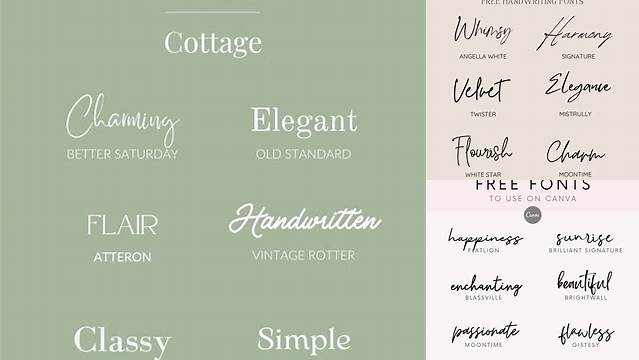
Charming Free Canva Fonts: Handwriting Styles
Hey guys! Looking to add a personal touch to your designs? You're in the right spot! Let's dive into the world of free Canva fonts that look like handwriting. Nothing beats the charm of a handwritten note, and with these fonts, you can bring that authentic feel to your digital projects without spending a dime. Whether it's for invitations, social media graphics, or branding materials, these fonts will make your work stand out.
Why Use Handwriting Fonts?
Before we jump into the specifics, let's talk about why handwriting fonts are so awesome. They bring a sense of warmth and personality to your designs that you just can't get with standard fonts. Think about it: a handwritten font feels more personal and inviting, which can make your audience feel more connected to your message. Plus, they're super versatile and can be used in a variety of projects.
1. Best Free Canva Handwriting Fonts for Invitations
When you're crafting invitations, you want something that feels special and unique. The best free Canva handwriting fonts can really set the tone for your event. Imagine sending out wedding invitations with a font that looks like it was lovingly handwritten by you – it adds a touch of elegance and intimacy that's hard to replicate. For birthday parties, a playful handwriting font can create a fun and festive vibe that gets everyone excited to celebrate.
So, which fonts should you be reaching for? Think about fonts with loops and flourishes, something that mimics the natural flow of cursive writing. These fonts make your invitations feel more personal, as though you took the time to carefully address each one by hand. And hey, in a world of digital communication, that extra touch can make all the difference!
2. Top Free Script Fonts on Canva for Branding
Your brand is your identity, and your font plays a huge role in communicating that identity to the world. Top free script fonts on Canva can help you create a brand that feels authentic and approachable. A well-chosen script font can convey elegance, creativity, or even a sense of fun, depending on your brand's personality. For example, if you're running a boutique, a delicate script font can evoke a sense of luxury and exclusivity. On the other hand, if you're branding a children's clothing line, a playful, whimsical script font can make your brand feel more friendly and inviting.
When selecting script fonts for branding, consider legibility and readability. While a fancy, intricate font might look stunning, it won't do you any good if people can't easily read your brand name or tagline. Opt for fonts that strike a balance between style and clarity, ensuring that your brand message is both beautiful and accessible.
3. Popular Handwritten-Style Fonts for Social Media
Social media is all about capturing attention, and popular handwritten-style fonts can help you do just that. These fonts stand out in a sea of standard, corporate-looking text, making your posts more engaging and shareable. Think about it: when you're scrolling through your feed, what catches your eye? Something that looks different and unique, right? Handwritten fonts offer that visual appeal, drawing people in and making them want to learn more.
For social media, consider using fonts that are bold and easy to read, even on small screens. A slightly thicker handwritten font can make your text pop, ensuring that your message is clear and impactful. And don't be afraid to experiment with different fonts for different types of content. A playful font might be perfect for a fun announcement, while a more elegant font could be ideal for sharing inspirational quotes.
4. Free Canva Cursive Fonts for a Personal Touch
If you're aiming for a truly personal touch, free Canva cursive fonts are the way to go. Cursive fonts mimic the flowing, connected strokes of handwriting, giving your designs a sense of authenticity and warmth. They're perfect for projects where you want to create a feeling of intimacy and connection, such as thank-you notes, personalized gifts, or heartfelt messages.
When using cursive fonts, be mindful of readability. Some cursive fonts can be quite intricate, which can make them difficult to read if they're too small or used in large blocks of text. Choose cursive fonts that are clear and legible, and use them sparingly to highlight key words or phrases. A little bit of cursive can go a long way in adding a personal touch to your designs.
5. Unique Canva Fonts That Resemble Real Handwriting
Want something that truly looks like it came straight from a pen? Unique Canva fonts that resemble real handwriting are what you need. These fonts capture the subtle imperfections and variations that make handwriting so distinctive. They're perfect for projects where you want to create a sense of authenticity and originality, such as blog headers, journal entries, or scrapbook layouts.
Look for fonts that have a natural, uneven flow, with slight variations in thickness and spacing. These fonts mimic the way that a real person's handwriting would look, making your designs feel more genuine and relatable. And don't be afraid to mix and match different handwriting fonts to create a truly unique look!
6. How to Find Free Handwriting Fonts on Canva
Finding the perfect free handwriting fonts on Canva is easier than you think. Simply open Canva and start a new design. Then, click on the text tool and browse through the font options. Use the search bar to type in keywords like "handwriting," "script," or "cursive" to narrow down your options. Canva has a wide selection of free fonts, so you're sure to find something that you love.
Another great way to discover new fonts is to explore Canva's font pairings. These pairings are curated combinations of fonts that work well together, taking the guesswork out of font selection. You can also check out Canva's design templates, which often feature beautiful handwriting fonts that you can use as inspiration.
7. Combining Handwriting Fonts with Other Font Styles
To create visually appealing designs, try combining handwriting fonts with other font styles. For example, you could pair a script font with a clean sans-serif font to create a contrast between elegance and simplicity. This technique can add depth and interest to your designs, making them more engaging and professional-looking.
When combining fonts, pay attention to hierarchy and legibility. Use the handwriting font for headings or key phrases, and use a simpler font for body text. This will help to guide the reader's eye and ensure that your message is clear and easy to understand. And don't be afraid to experiment with different font combinations until you find something that feels just right!
8. Best Practices for Using Handwriting Fonts in Design
Using handwriting fonts effectively requires a bit of finesse. Follow these best practices to ensure that your designs look polished and professional: Prioritize legibility, especially in body text. Choose fonts that are easy to read and avoid overly ornate or intricate designs. Use handwriting fonts sparingly, as too much can be overwhelming. Combine with clean, simple fonts for contrast.
Adjust spacing and size for readability. Ensure proper kerning and leading. Test your design on different devices to ensure fonts render correctly. Consider your audience and the message you want to convey. Choose fonts that align with your brand's personality and the tone of your project. By following these guidelines, you can harness the power of handwriting fonts to create designs that are both beautiful and effective.
9. The Psychology Behind Handwriting Fonts
There's a reason why handwriting fonts resonate with people on a deeper level. They evoke feelings of nostalgia, warmth, and authenticity. Think about the last time you received a handwritten letter or card. It probably made you feel special and appreciated, right? That's because handwriting carries a personal touch that digital fonts simply can't replicate.
In marketing, using handwriting fonts can help to build trust and create a more human connection with your audience. They can make your brand feel more approachable and relatable, which can lead to increased engagement and customer loyalty. So, if you're looking to add a personal touch to your marketing materials, consider incorporating handwriting fonts into your design strategy.
10. Pairing Free Canva Handwriting Fonts with Images
The right images can amplify the effect of your handwriting fonts. Consider the mood you're trying to create. For example, a rustic script font paired with a vintage photo can evoke a sense of nostalgia, while a playful handwriting font combined with colorful illustrations can create a fun and whimsical vibe. Choose images that complement the style of your font and enhance the overall message of your design. Experiment with different combinations to find what works best for your project. Use high-quality images to maintain a professional look.
11. Free Canva Calligraphy Fonts for Elegant Designs
For a touch of sophistication, explore free Canva calligraphy fonts. These fonts mimic the elegant strokes of traditional calligraphy, adding a sense of refinement and grace to your designs. They're perfect for wedding invitations, thank-you notes, or any project where you want to convey a sense of luxury and artistry.
When using calligraphy fonts, be mindful of legibility. Choose fonts that are easy to read and avoid using them in large blocks of text. Use them sparingly to highlight key words or phrases, and pair them with simpler fonts for contrast. With the right touch, calligraphy fonts can elevate your designs and create a lasting impression.
12. Using Free Handwriting Fonts for Logos
A handwriting font can give your logo a personal and memorable touch. It can make your brand feel more approachable and authentic. However, choose a font that is legible and scalable. Ensure it looks good in both large and small sizes. Consider your brand's personality. Is it playful and whimsical, or sophisticated and elegant? Choose a font that reflects your brand's identity.
Test your logo on different backgrounds and in different colors to ensure it remains legible. Get feedback from others to see how they perceive your logo. By following these tips, you can create a logo that stands out and represents your brand effectively. Remember, a well-designed logo is a valuable asset that can help you attract and retain customers.
13. The Importance of Legibility in Handwriting Fonts
While handwriting fonts add a unique touch, legibility is key. Prioritize fonts that are easy to read at a glance. Avoid overly decorative or complex fonts that can strain the eye. Test your design on different devices and screen sizes. Ensure the font remains clear and readable even on small screens. Consider your audience. Choose fonts that are appropriate for their age and reading ability.
Use adequate spacing between letters and lines to improve readability. Avoid using handwriting fonts for large blocks of text. Instead, use them for headings or short phrases. By prioritizing legibility, you can ensure that your message is effectively communicated and that your designs are accessible to all.
14. Free Canva Fonts That Mimic Signature Styles
Want to add a personal signature to your designs? Look for free Canva fonts that mimic signature styles. These fonts can make your work feel more authentic and unique. They're perfect for watermarks, branding materials, or adding a personal touch to your projects.
When choosing a signature font, consider your personal style. Do you prefer a bold and confident signature, or something more delicate and refined? Select a font that reflects your personality and brand. Use it sparingly to highlight your name or initials, and pair it with simpler fonts for contrast. With the right signature font, you can make your designs feel truly your own.
15. Adding Swashes and Flourishes to Free Handwriting Fonts
To enhance the elegance of your handwriting fonts, consider adding swashes and flourishes. These decorative elements can add a touch of sophistication and artistry to your designs. Look for fonts that include built-in swashes and flourishes, or add them manually using graphic design software.
Use swashes and flourishes sparingly, as too much can be overwhelming. Focus on adding them to key letters or at the beginning and end of words. Consider the overall style of your design. Choose swashes and flourishes that complement the font and enhance the overall aesthetic. With the right touch, these elements can elevate your designs and make them feel truly special.
16. Free Canva Fonts for Handwritten Quotes
Handwritten quotes are a great way to add inspiration to your designs. Choose a free Canva font that complements the tone of your quote. Use a legible font to ensure your message is clear. Experiment with different font sizes and colors to make your quote stand out. Consider adding decorative elements, such as underlines or borders.
Share your handwritten quotes on social media to inspire others. Use them in greeting cards, posters, and other creative projects. With Canva's free handwriting fonts, you can create beautiful and inspiring designs that resonate with your audience.
17. The Role of Kerning and Leading in Handwriting Fonts
Kerning (the space between letters) and leading (the space between lines) play a crucial role in the legibility and aesthetics of handwriting fonts. Adjust kerning to ensure that letters are evenly spaced and visually balanced. Increase leading to improve readability, especially in longer blocks of text.
Experiment with different kerning and leading settings to find what looks best for your chosen font and design. Pay attention to the overall rhythm and flow of the text. By fine-tuning these settings, you can enhance the beauty and readability of your handwriting fonts.
18. How to Upload Your Own Handwriting Font to Canva
Want to use your own handwriting in your Canva designs? You can upload your own handwriting font to Canva and add a personal touch to your projects. Start by creating a digital version of your handwriting using a scanner or tablet. Convert your handwriting into a font file using font creation software. Upload your font file to Canva and start using it in your designs. This is a great way to make your projects truly unique.
19. Free Canva Fonts for Bullet Journaling
If you love bullet journaling, free Canva fonts can help you create beautiful and organized layouts. Choose fonts that are easy to read and that complement your journaling style. Use different fonts for headings, subheadings, and body text to create visual hierarchy. Experiment with different colors and sizes to make your journal entries stand out. With Canva's free fonts, you can take your bullet journaling to the next level.
20. Tips for Choosing the Right Handwriting Font for Your Project
Choosing the right handwriting font can make or break your design. Consider the tone and style of your project. Are you going for elegant and sophisticated, or fun and playful? Choose a font that matches the overall mood. Think about your audience. Select a font that is appropriate for their age and interests. Prioritize legibility. Ensure that the font is easy to read, even at small sizes.
Test your design with different fonts to see what looks best. Get feedback from others to see what they think. By following these tips, you can choose a handwriting font that enhances your design and effectively communicates your message.
21. Free Canva Fonts for Educational Materials
For educational materials, select handwriting fonts that are clear and easy for children to read. Consider using fonts that mimic the style of handwriting taught in schools. Incorporate these fonts into worksheets, flashcards, and other learning resources to make them more engaging and accessible. Ensure the font is appropriate for the age group and subject matter.
22. Creating a Cohesive Design with Handwriting Fonts
To create a cohesive design, limit the number of different fonts used. A maximum of two or three fonts is generally recommended. Ensure the handwriting font complements the other fonts in the design. Maintain a consistent color palette and design elements throughout the project. Consider the overall balance and visual harmony of the design.
23. How to Resize Handwriting Fonts in Canva Without Losing Quality
To resize handwriting fonts in Canva without losing quality, start by using vector-based fonts whenever possible. These fonts are designed to scale without becoming pixelated or blurry. Avoid resizing fonts excessively, as this can still lead to some loss of quality. Preview your design at different sizes to ensure that the fonts remain clear and legible.
24. Free Canva Fonts for Crafting Projects
For crafting projects, choose handwriting fonts that are compatible with your cutting machine. Ensure the font has smooth lines and closed shapes for easy cutting. Consider using bold, easy-to-read fonts for clear results. Resize the font as needed to fit your project dimensions. Experiment with different colors and materials to create unique and personalized crafts.
25. The Future of Handwriting Fonts in Graphic Design
The future of handwriting fonts in graphic design is bright, with increasing demand for authentic and personal designs. Expect to see more sophisticated and realistic handwriting fonts emerging. AI-powered tools may enable designers to create custom handwriting fonts effortlessly. Designers will continue to use handwriting fonts to add warmth and individuality to digital and print projects.
26. Free Canva Fonts for E-books and Book Covers
Choose handwriting fonts that reflect the genre and tone of your e-book. Use them sparingly for titles and headings to add a unique touch. Ensure the font is easy to read on various devices and screen sizes. Combine handwriting fonts with professional serif or sans-serif fonts for body text. Consider the overall design and layout to create an engaging and visually appealing book cover.
27. Adding Shadows and Effects to Handwriting Fonts
Adding shadows and effects can enhance the depth and visual appeal of handwriting fonts. Use drop shadows, inner shadows, or glows to create a sense of dimension. Experiment with different colors and opacities to achieve the desired effect. Avoid overusing effects, as this can make the font appear cluttered and difficult to read. Keep the design clean and balanced for a professional look.
28. Free Canva Fonts for Business Cards
Select handwriting fonts that are professional and easy to read. Use them for your name and job title to add a personal touch. Ensure the font is legible at a small size. Combine handwriting fonts with clean, minimalist design elements. Consider the overall branding and target audience when choosing a font. A well-designed business card leaves a lasting impression.
29. The Impact of Font Choice on Brand Perception
The font you choose greatly influences how people perceive your brand. It communicates your brand's personality, values, and style. Handwriting fonts can make your brand feel more approachable, authentic, and creative. Choose fonts that align with your brand identity and target audience. Consistency in font usage across all platforms is crucial for building brand recognition.
30. Where to Find Inspiration for Using Handwriting Fonts
Finding inspiration for using handwriting fonts can spark creativity and lead to unique design ideas. Explore design blogs, social media platforms, and online portfolios to see how others are using handwriting fonts. Look at examples of branding, advertising, and editorial design for inspiration. Experiment with different font combinations, colors, and layouts to discover your own style. The possibilities are endless!